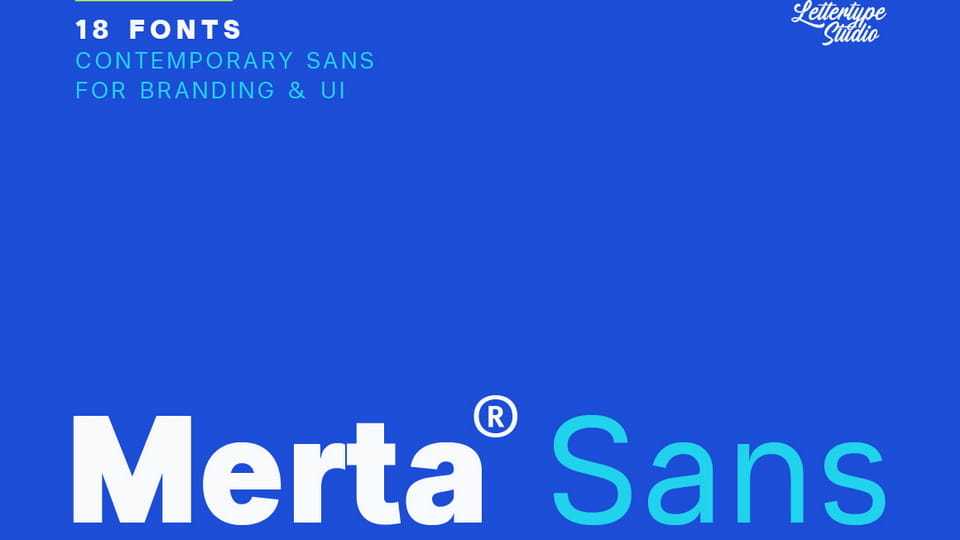
Download Merta Sans font, a contemporary sans serif typeface crafted for modern branding and digital interfaces. Designed with clean proportions, refined spacing, and subtle warmth, it delivers clarity without feeling cold or mechanical.
Designer: Lettertype Studio